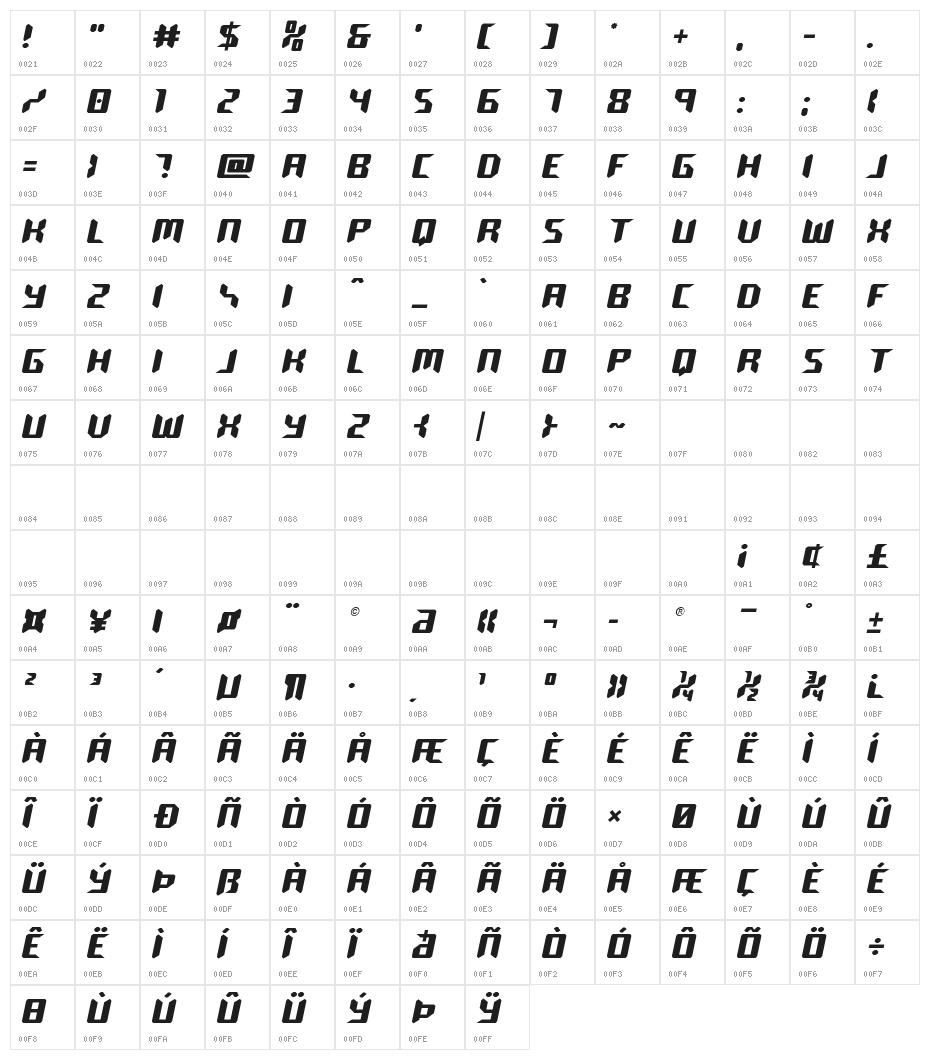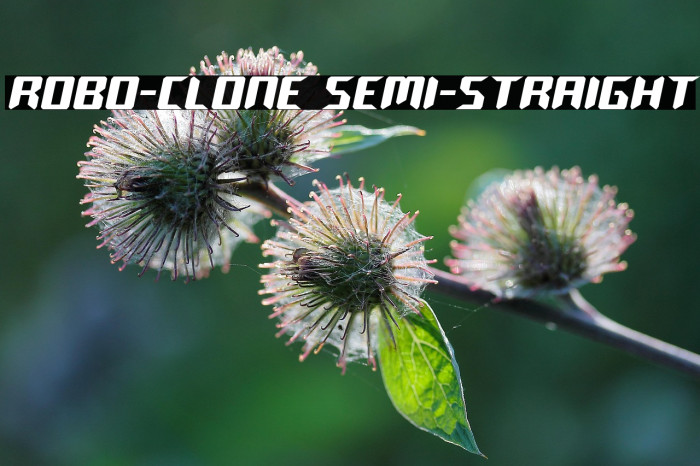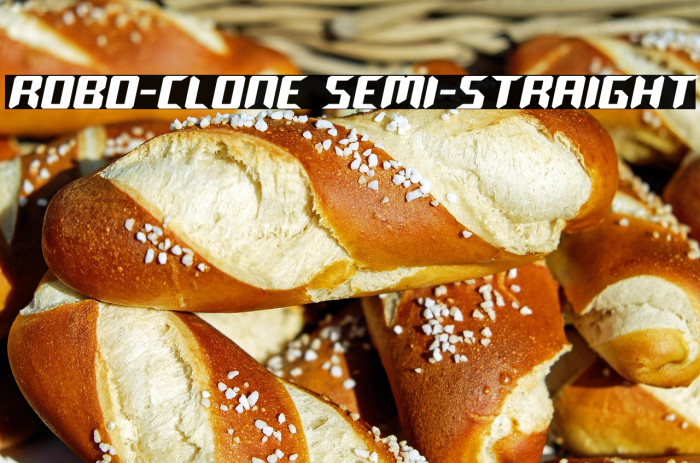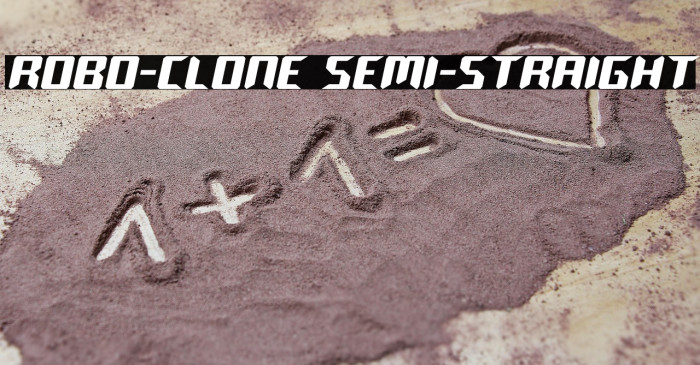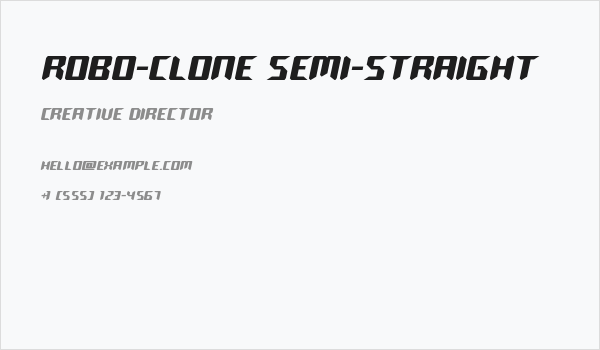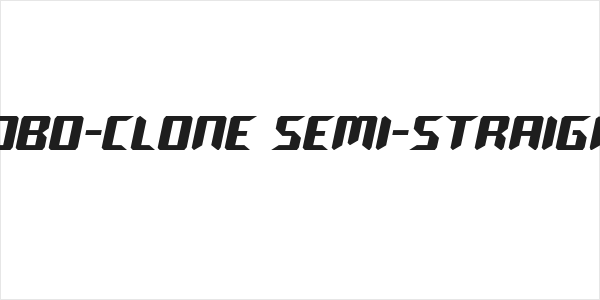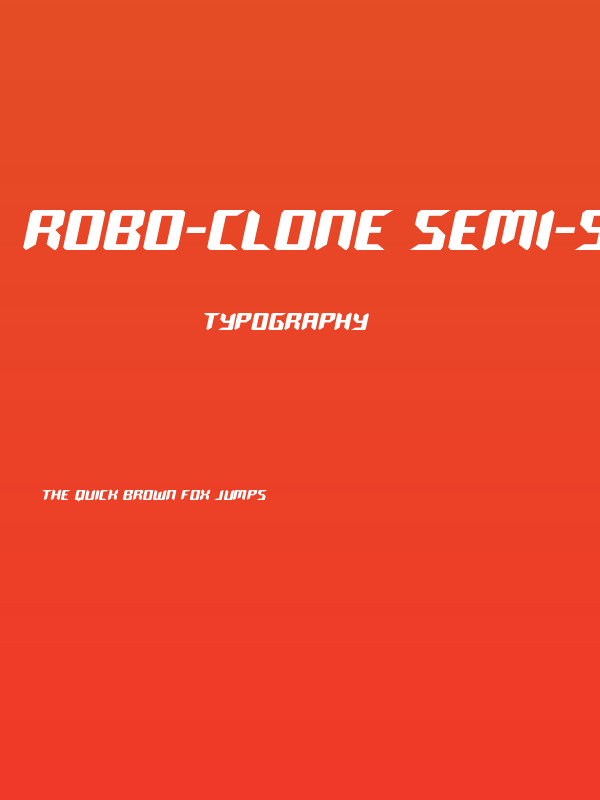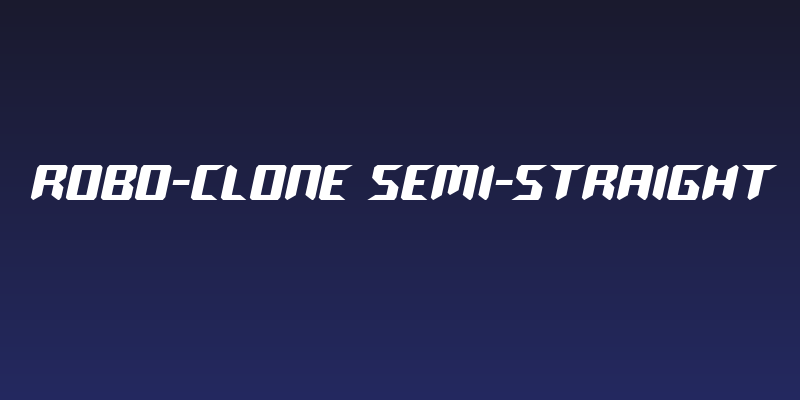
Robo-Clone Semi-Straight Font
Robo-Clone Semi-Straight Description
This font features a bold, futuristic design with angular, geometric shapes that give it a robotic and mechanical feel. The characters are slightly slanted, adding a dynamic and forward-moving appearance. The uppercase and lowercase letters maintain a consistent style, with sharp edges and a uniform stroke width. The numerals and special characters are crafted to match the overall aesthetic, making them suitable for digital and tech-themed projects. The font's unique style makes it stand out, ideal for attention-grabbing headlines or branding that requires a modern and edgy look.
| Proposed Projects | Ideal for tech-themed branding, futuristic posters, video game titles, and digital interfaces. |